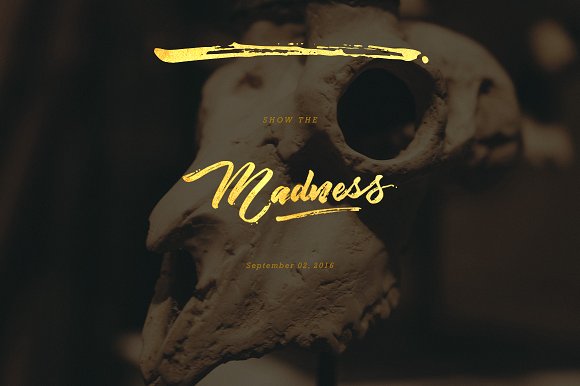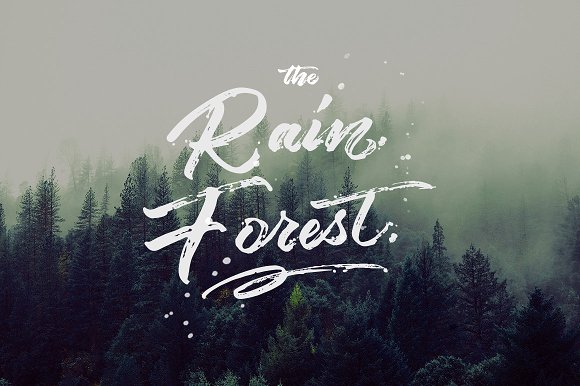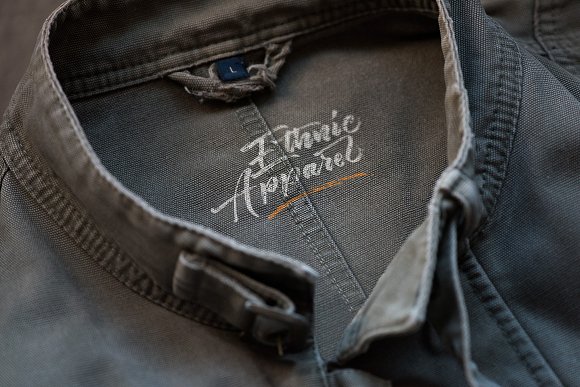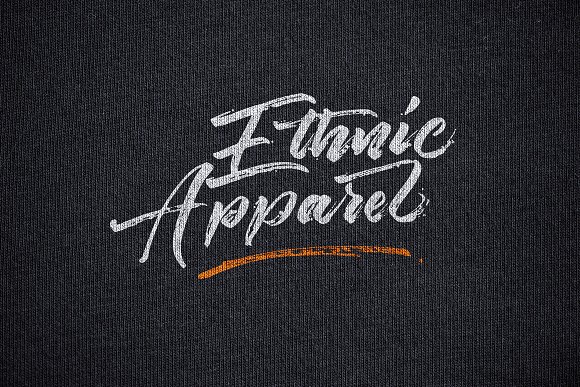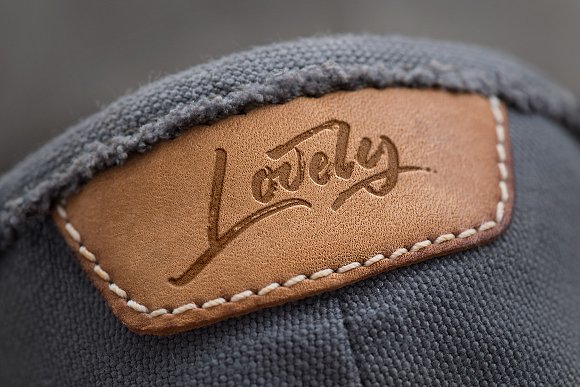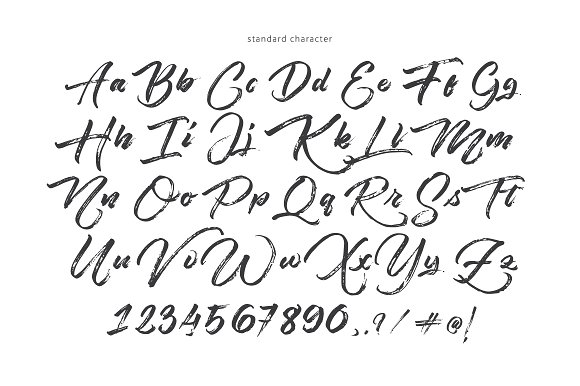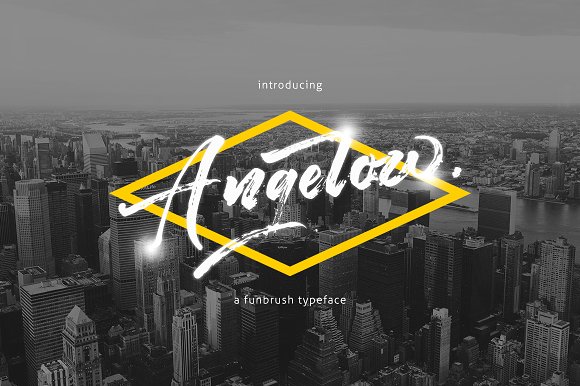
Introducing Angelow Font: The Perfect Choice for Custom Lettering and Crafting
Are you a designer, crafter, or DIY enthusiast looking for a unique and versatile font to elevate your creative projects? Look no further than Angelow Font, a rough brush font that makes it easy to create custom lettering with a personal touch. In this article, we’ll explore the features and benefits of Angelow Font, and how it can be used to add a creative flair to your work.
What is Angelow Font?
Angelow Font is a rough brush font designed to mimic the look and feel of hand-painted lettering. With its imperfect, organic strokes and rustic charm, this font is perfect for creating custom lettering that adds a personal touch to any project. Whether you’re working on a clothing design, headline, or craft project, Angelow Font is the perfect choice for adding a unique and creative element.
Key Features of Angelow Font
- Rough Brush Texture: Angelow Font features a rough brush texture that gives it a unique, hand-painted look.
- Customizable: With Angelow Font, you can easily create custom lettering by adjusting the font size, color, and style to suit your project.
- Versatile: This font works great on a variety of materials, including clothing, paper, and digital surfaces.
- Easily Readable: Despite its rough texture, Angelow Font is surprisingly easy to read, making it perfect for headlines and titles.
Uses for Angelow Font
Angelow Font is a versatile font that can be used in a variety of creative projects, including:
- Clothing Design: Add a personal touch to your t-shirt designs, hoodies, and other apparel with custom lettering.
- Headlines and Titles: Use Angelow Font to create eye-catching headlines and titles for your blog posts, social media graphics, and marketing materials.
- Crafting and DIY Projects: Add a creative element to your craft projects, such as handmade cards, gift tags, and scrapbooking pages.
- Signage and Displays: Use Angelow Font to create custom signs, banners, and displays for your business or event.
Tips for Using Angelow Font
To get the most out of Angelow Font, here are a few tips to keep in mind:
- Experiment with Colors: Try pairing Angelow Font with different colors and textures to create a unique look.
- Play with Font Sizes: Experiment with different font sizes to create visual interest and emphasis.
- Add Effects and Textures: Consider adding effects and textures to your text, such as shadows, outlines, or subtle patterns.
Angelow Font is a unique and versatile font that’s perfect for designers, crafters, and DIY enthusiasts looking to add a creative element to their projects. With its rough brush texture, customizable features, and easily readable design, Angelow Font is the perfect choice for creating custom lettering that stands out. Whether you’re working on a clothing design, headline, or craft project, Angelow Font is sure to inspire your creativity and take your work to the next level.